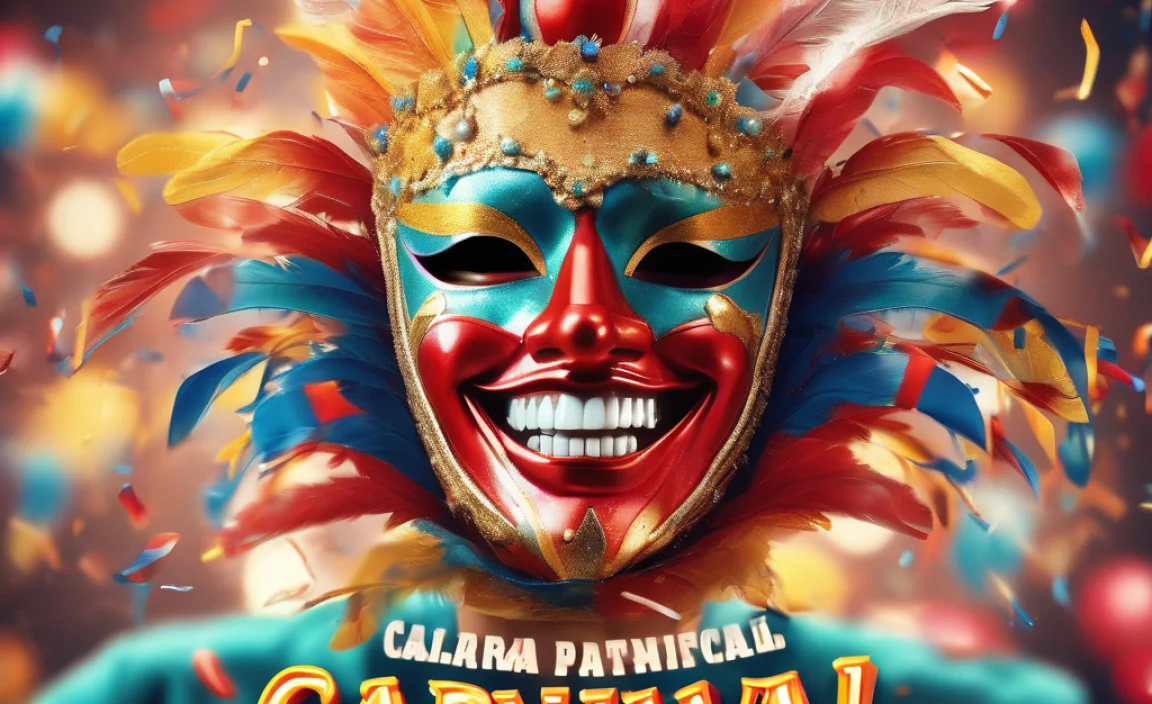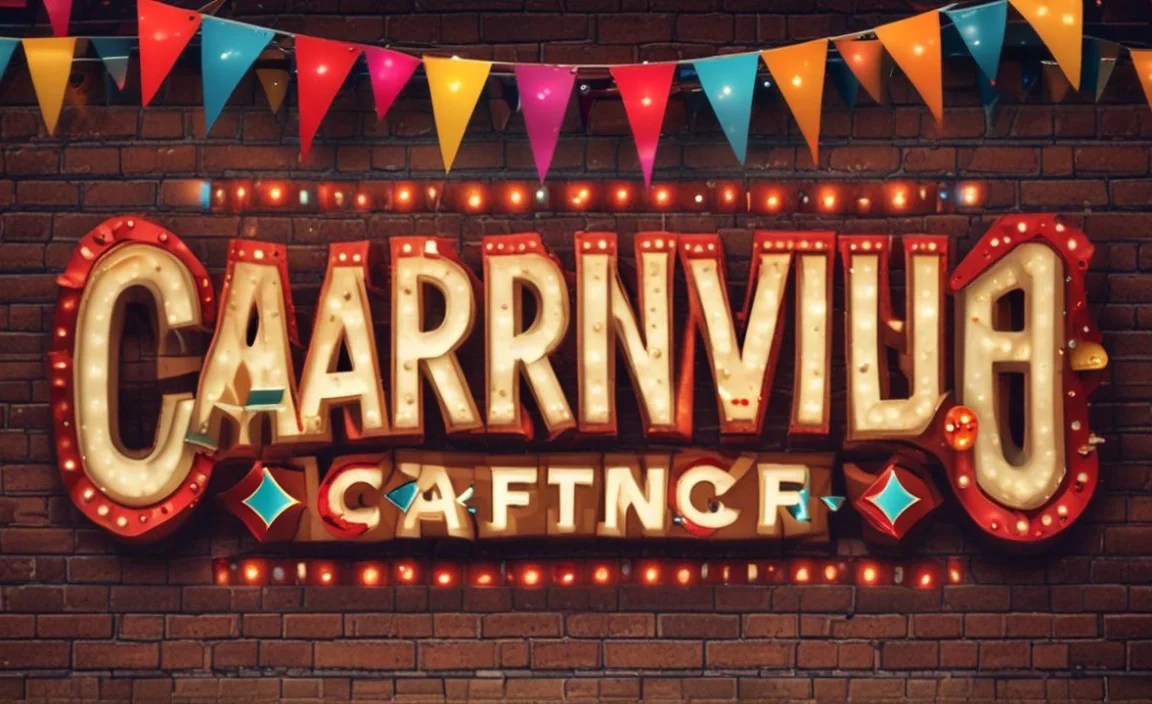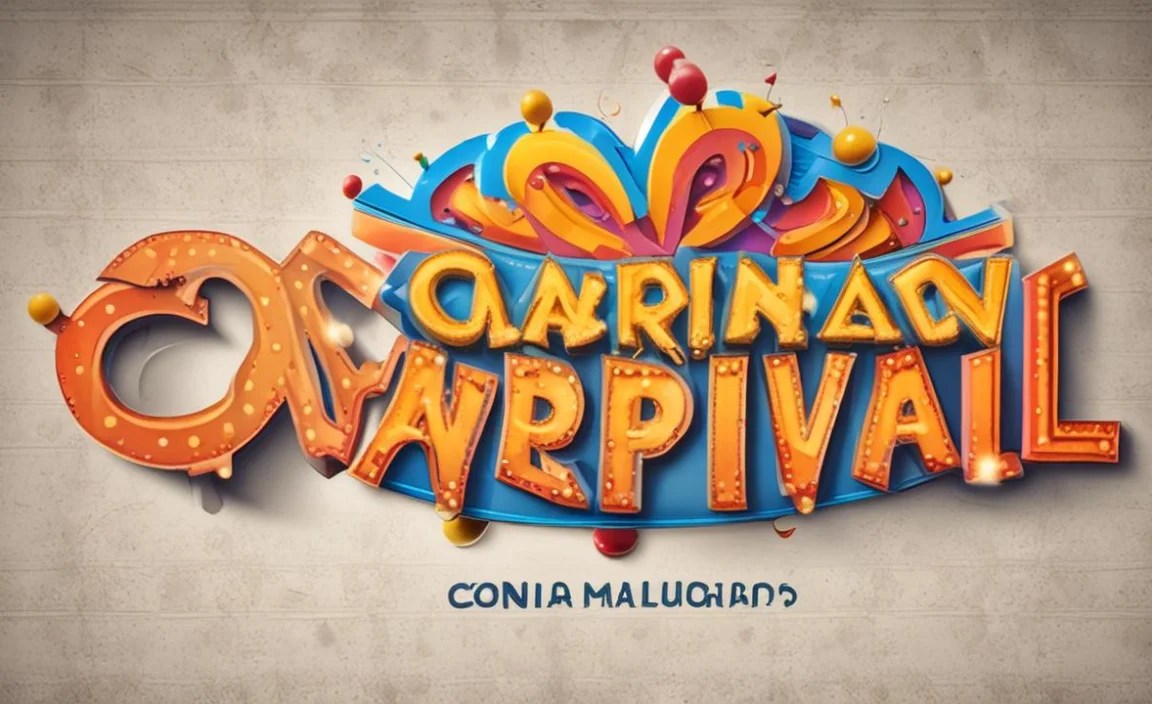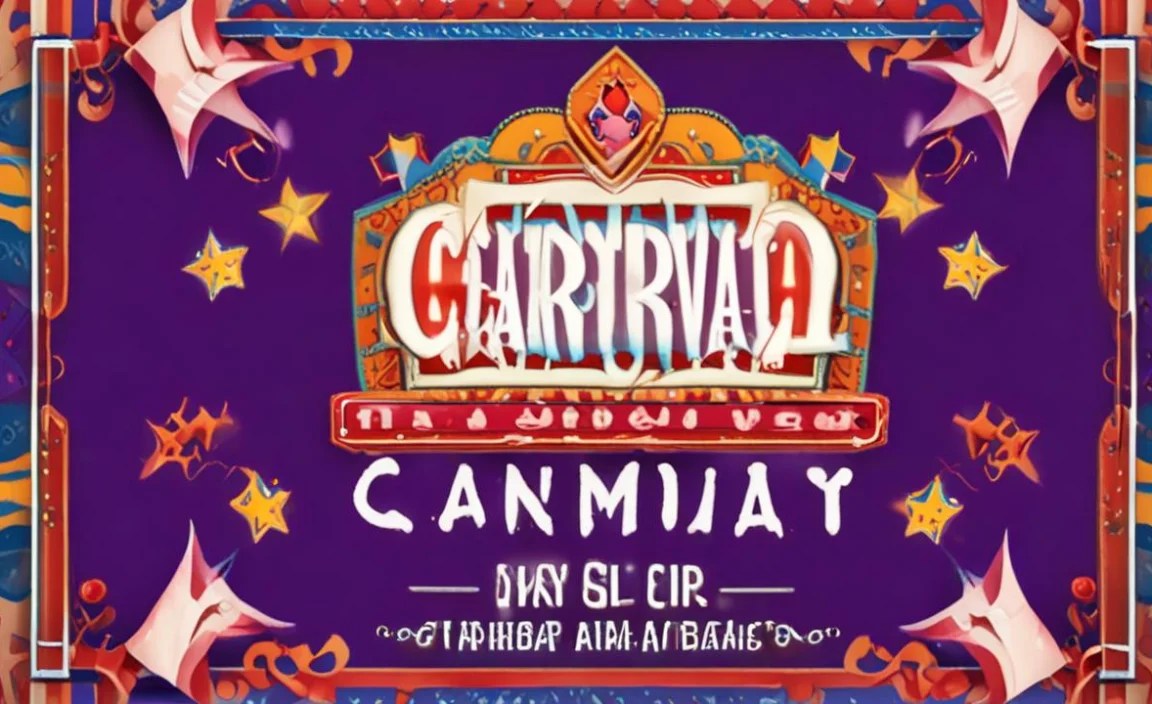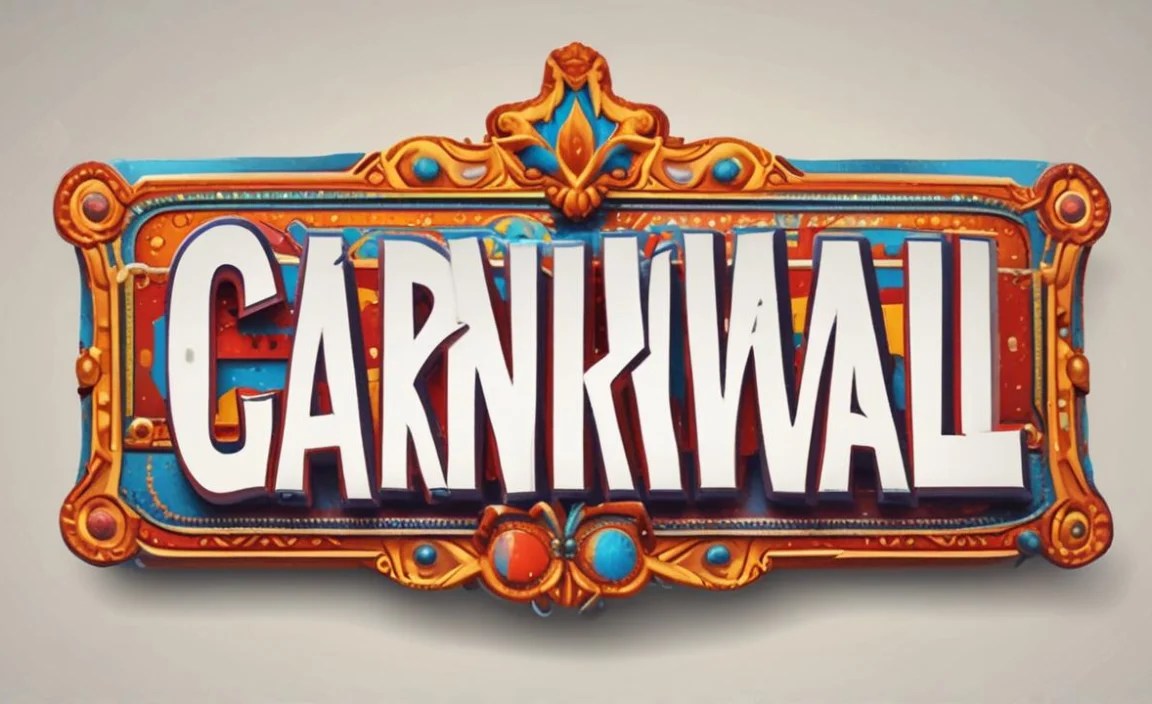
Typography is more than choosing letters to fill up space on a page. It’s about creating an experience, evoking emotions, and connecting. The Carnival Font is one of the most exciting fonts that consistently pulls off this task.
Bold, fun, and full of character, the Carnival Font is the ideal choice for any project that needs to stand out in a crowd. You can use the Carnival font to make your project stand out, whether making Mardi Gras invitations or masks for New Zealand parades.
Why Choose Carnival Fonts?
Carnival fonts are not just any typefaces. They’ve earned a special place in design because they bring energy and playfulness to everything they touch. Here’s why they are a fantastic choice for your next creative venture:
Perfect for Posters & Banners
When you think of carnivals, what comes to mind? Crowds, celebration, and bright colors everywhere. Carnival fonts capture this feeling perfectly, making them ideal for posters and banners. Imagine walking down a street during Mardi Gras and spotting an eye-catching carnival poster advertising the upcoming parade. The bold strokes of the circus font immediately grab your attention.
These fonts are perfect for festival announcements, event marketing, or even advertisements at the Sames Auto Arena in Texas or anywhere else! Their loud, vibrant presence makes them impossible to miss.
Enhances Brand Identity
For businesses, standing out is everything. Whether you’re selling a product or offering a service, it’s crucial to have a brand that’s memorable. Using a carnival font in your advertising materials or logos can help cement that fun and energetic brand identity.
In addition to looking good, a good font makes you feel something. Carnival fonts bring to mind excitement, joy, and a sense of adventure, which makes them perfect for businesses that want to create an atmosphere of fun. Just picture a vintage font with playful elements decorating a business platform to grab visitors’ attention. That’s the power of choosing the right font!
Versatile Usage
One of the best things about Carnival fonts is their versatility. You can use them for various events, including circus shows, parties, Mardi Gras, or even a WBCA Carnival. These fonts work equally well for vintage-style designs as they do for modern advertising.
Whether it’s a party invitation for your upcoming carnival celebration or a banner for your business’s grand opening, these fonts never fail to make an impact. They offer flexibility, making them a staple for anyone looking to add excitement to their designs.
Great for Advertising
In the world of advertising, Carnival fonts shine like neon lights in a dark room. They are tailor-made for targeted advertising, ensuring your message is received and remembered. Whether running a campaign for a local event or advertising your carnival season event, these fonts ensure that your information is presented in an attention-grabbing way.
With their playful and bold nature, Carnival fonts are an excellent choice for businesses seeking to stand out from the crowd, whether in a modal window on a website or social media ads.
Popular Carnival Font Families
Choosing the right carnival font for your project is crucial, as they come in various shapes and sizes. Here are some of the most beloved families in this category:
1. Big Top
Imagine standing in front of a giant circus tent, the colors, the sounds, and the excitement in the air. Big Top brings all of this to life with bold, dramatic strokes. Big Top is the perfect choice for posters and parade schedules that aim to create a powerful impact. Perfect for vintage-style designs or even modern-day circus promotions.
2. Showboat
For those who love all things vintage, Showboat is the perfect font. Its style harkens back to the classic carnival posters of the early 20th century. It’s nostalgic, yet timeless, making it great for historical events, themed parties, or even Mardi Gras celebrations.
3. Freak Show
Freak Show is an excellent choice if you’re looking for a font with a bit of a wild edge. It adds a spooky, exciting vibe to any project, making it ideal for Halloween celebrations, haunted houses, or even a circus with a twist. Its bold, slightly unsettling appearance makes it impossible to ignore.
4. Belshaw
A perfect balance of playful and stylish, Belshaw is ideal for invitations, decorative signage, and party promotions. The typeface you would see on a carnival banner or event invitation is fun, but classy enough to make any design look better.
5. CF Wild West
CF Wild West caters to those seeking an old-fashioned, rustic aesthetic. It gives off that vintage font vibe with a western flair, perfect for rustic-themed events or a carnival with a frontier twist. Imagine it paired with cowboy hats, boots, and an old-fashioned sense of fun.
How Do I Pick The Best Carnival Font For My Design?
Consider the theme of your event or project. Showboat is great for vintage vibes, Freak Show works for spooky themes, and Coney Island is perfect for fun, festive designs.
Can Carnival Fonts Improve Readability In Posters?
Absolutely! Their bold and clear strokes make them ideal for large-scale marketing materials, ensuring that your message is loud and clear.